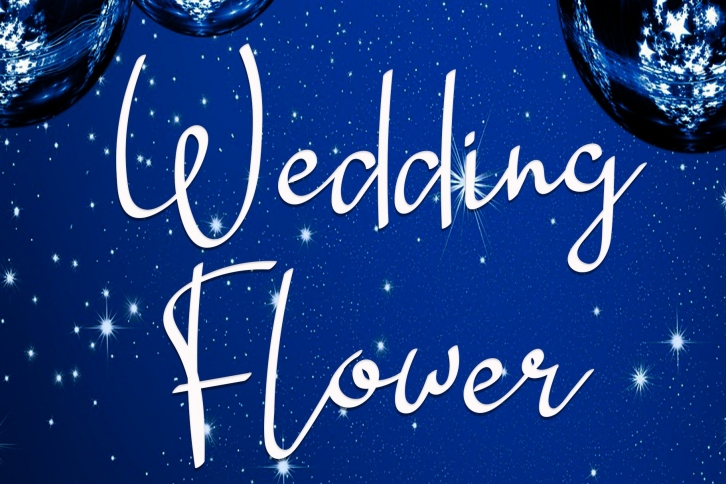
Wedding Flower is a trendy and unique font with an authentic style. It was designed by Giart Studios and it's a great choice for creative people who need such a font. It was released on June 13, 2021 and the file size is 4.74 MB. Wedding Flower will add an organic vibe to any design idea!